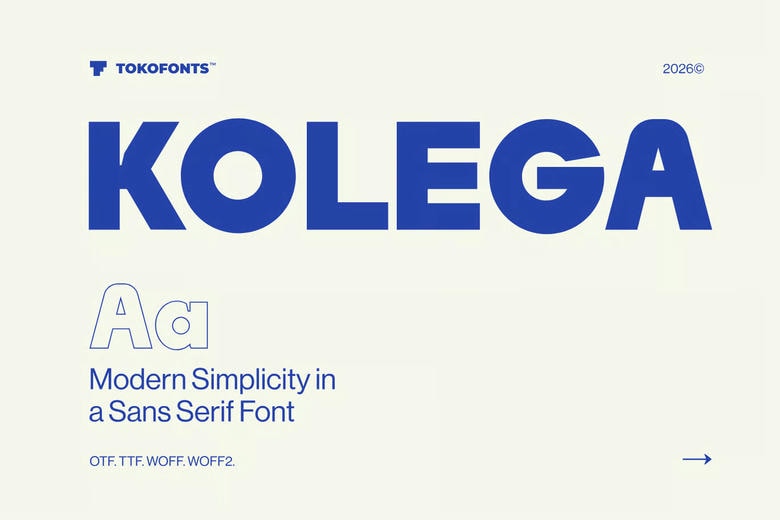
Kolega Font
Kolega is a contemporary and sophisticated sans serif display typeface that is created to provide a minimal and clean appearance to logo and branding projects. This font has the classic impact of Helvetica, Montserrat, and Futura with its bold structure and geometric balance, but it has a new and modern personality. It is ideally applicable in corporate identities, fashion branding, and contemporary visual systems that demand clarity and high visual impact.
Kolega font is a versatile and flexible font that can be used in a broad spectrum of creative projects, including professional corporate designs and fun kids ideas. The minimal and clean design guarantees a high level of readability with a strong display presence, which is perfect in logos, branding, and contemporary design compositions. Kolega is one of the contemporary fonts that are simple, elegant, and functional to create effective and sophisticated visual communication.
Kolega Sans Serif Font